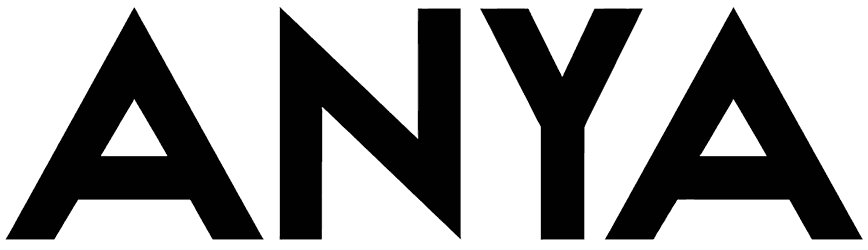
Anya Font
With a matchable and modern pickup, you are able to decorate numerous projects with any subject, and this sans-serif font is one of them. Anya has formal, bold lettering and conveys a reliable vibe. It doesn’t offer lowercase letters and most punctuation marks, but you can place it on a lot of designs, such as headlines, branding, covers, or the like.